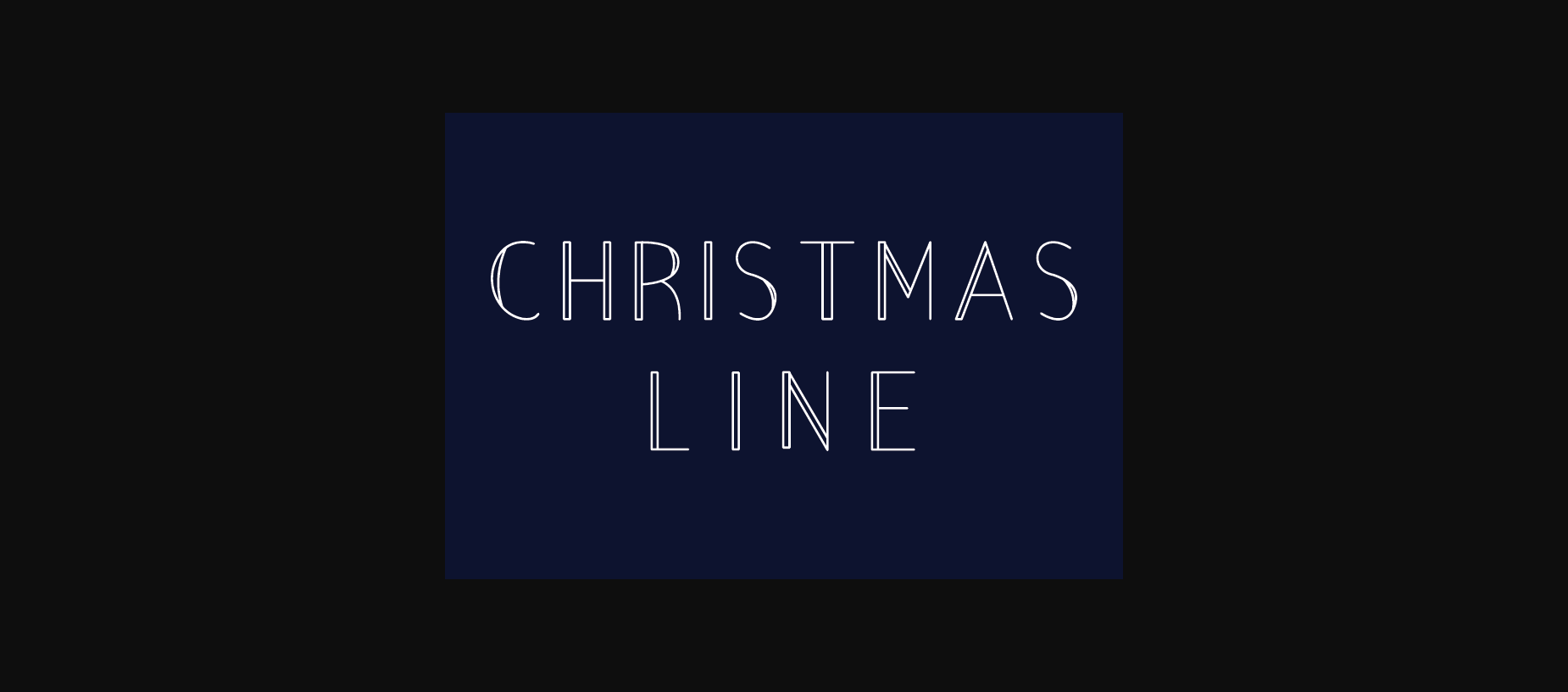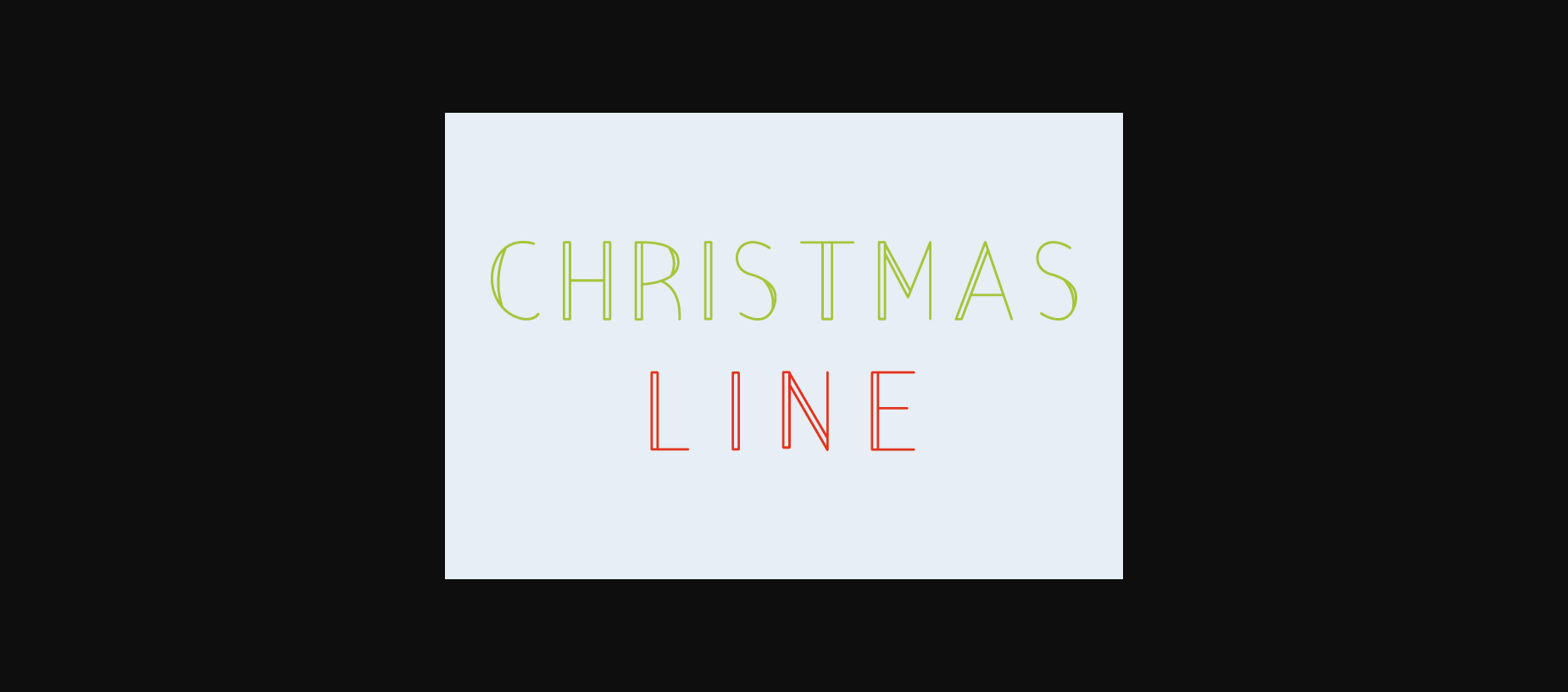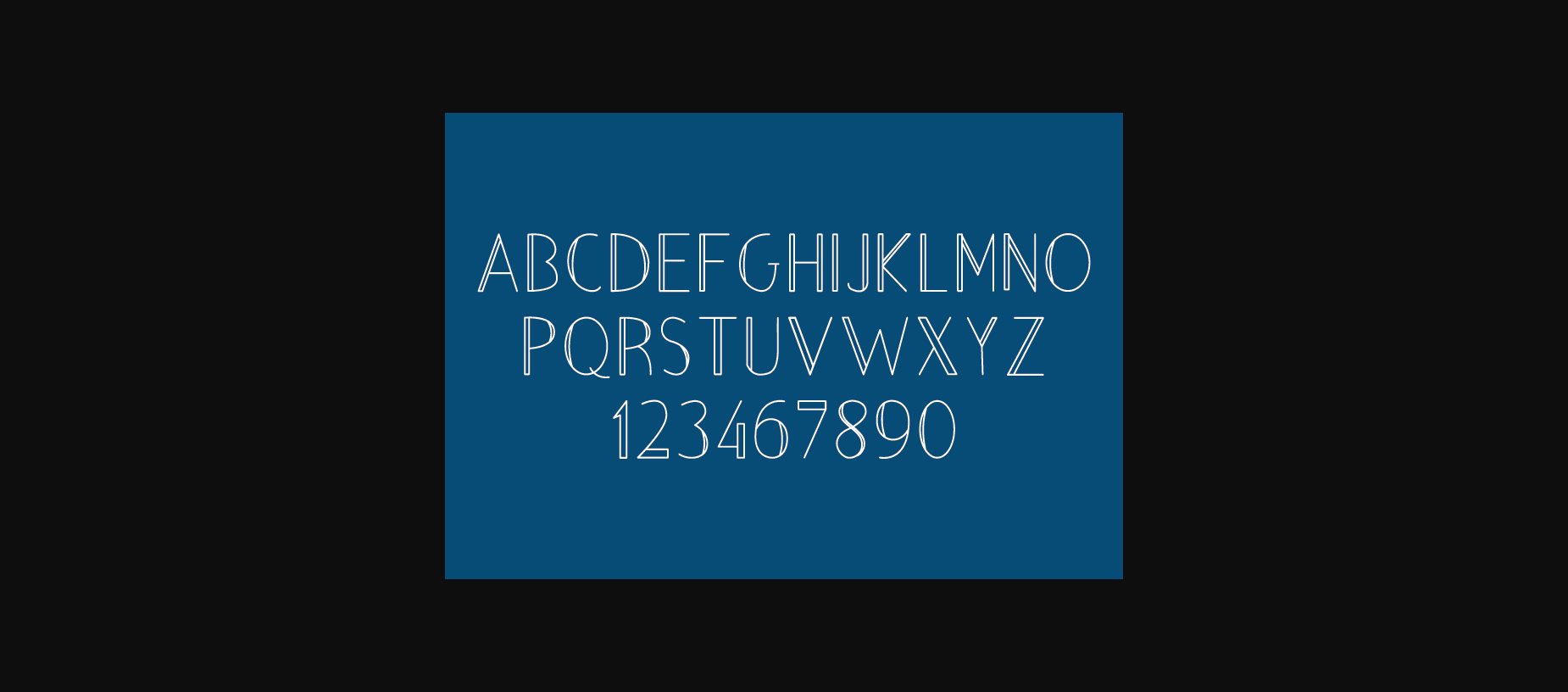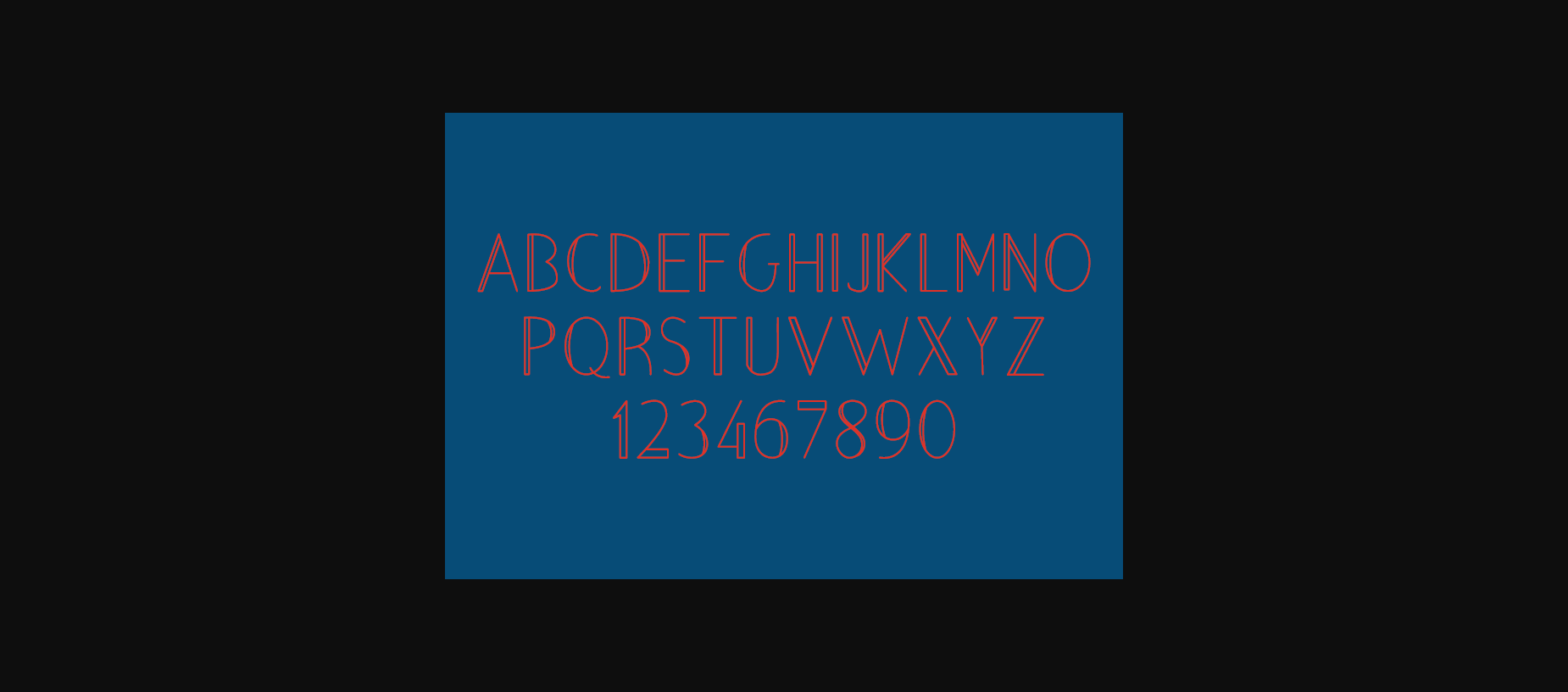
Christmas Line Font
About Christmas Line Font
Christmas Line is an elegant and delicate sans serif font. Fall in love with its incredibly
versatile style and use it to create gorgeous wedding invitations, beautiful stationary art, eye-catching social media posts, and much more!